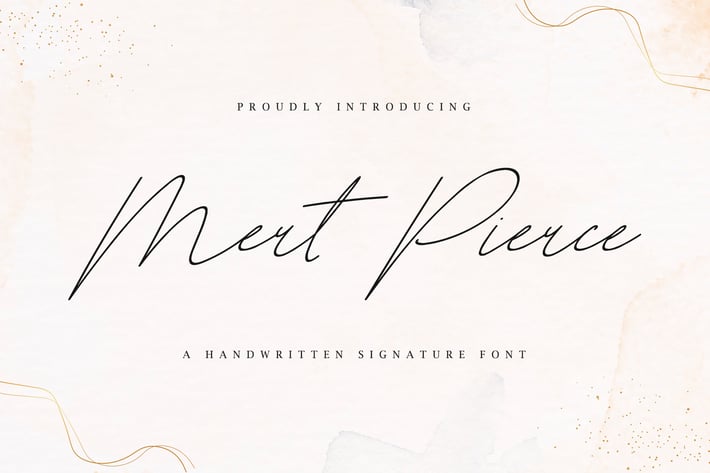
Mert Pierce - A Handwritten Signature Font
Introducing "Mert Pierce" - a handwritten signature font that adds a personal touch and authenticity to your designs.
With its fluid strokes and natural flow, "Mert Pierce" captures the essence of a handwritten signature, making it perfect for branding, logo design, product packaging, and more.
Embrace the individuality of "Mert Pierce" as it effortlessly enhances your designs with its unique personality and charm.
Step into the world of handwritten typography with "Mert Pierce" and infuse your projects with a touch of elegance and sophistication.
– Lowercase
– Ligature
– Alternate
– Multilingual Support